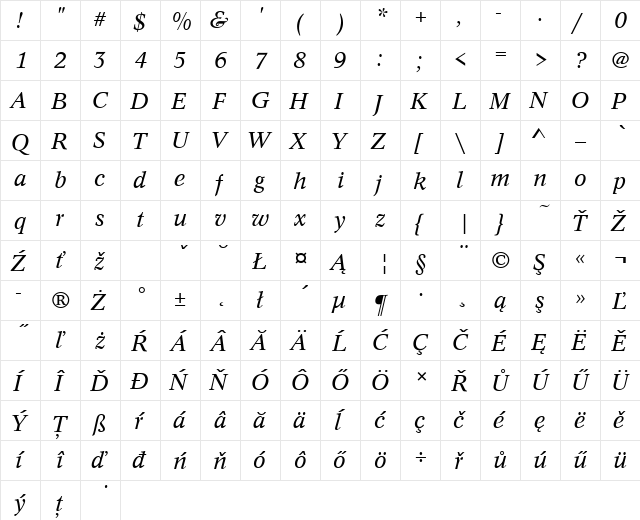
ContusTEEReg Italic
Design Context for ContusTEEReg Typeface
ContusTEEReg offers clean, dependable letterforms without strong stylistic allegiance, making it a practical choice for designers who need flexibility. The dynamic lean of this cut emphasises speed and emphasis in any layout.
Pro Tip: Use ContusTEEReg for emphasis, pull quotes, and subheadings where its slanted energy can add rhythm to the layout.